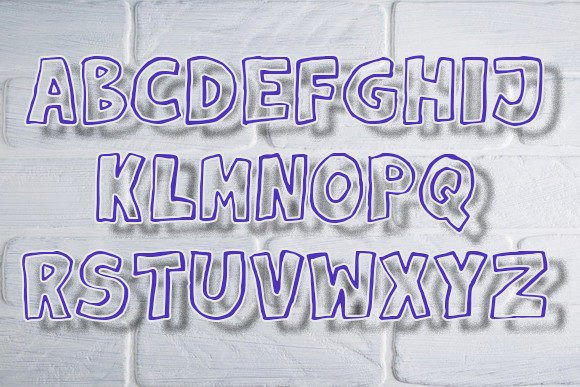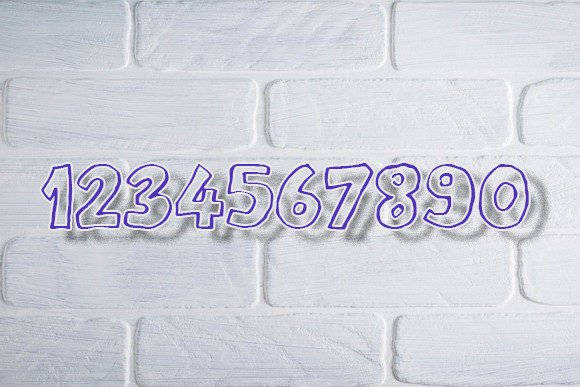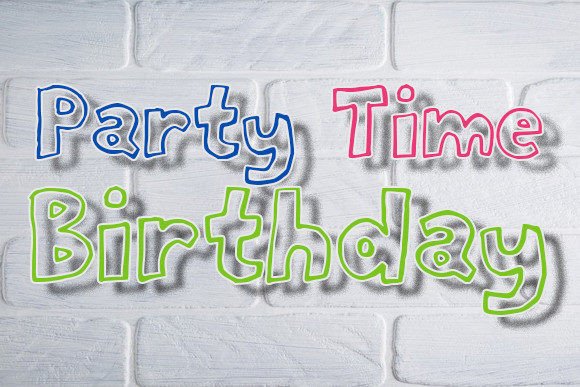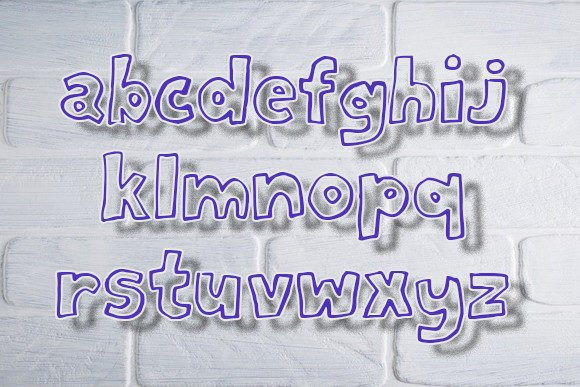
Milord
About Milord
Milord is a stylish comic-style display font family that will cheer up your projects. Use this font on posters, flyers, and t-shirts.